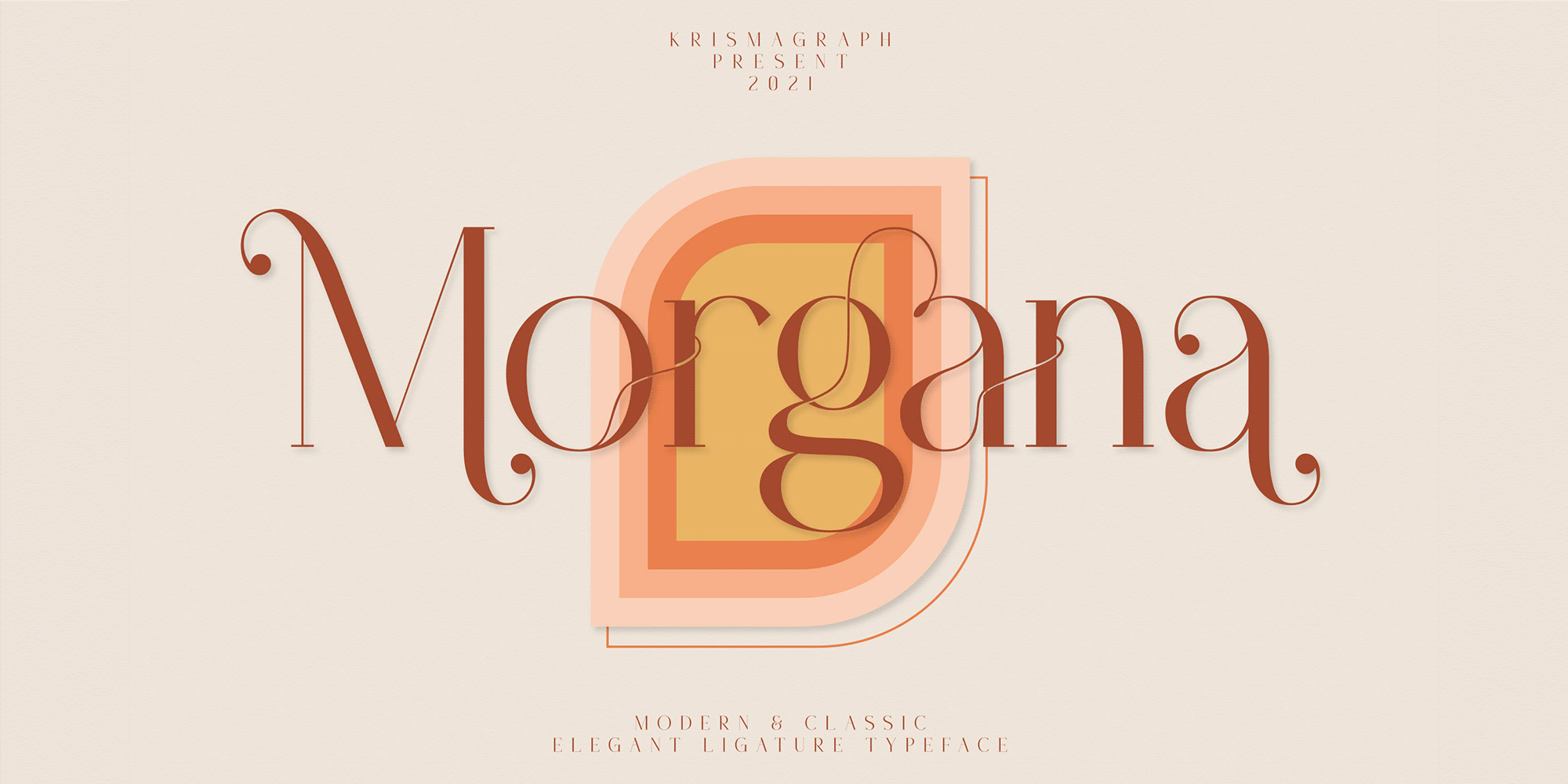
Morgana Font is perfect for mystical sorceress branding, enchanted fantasy novels, magical witchcraft academies, dark gothic romance covers, ancient spellbook designs, mystical jewelry packaging, supernatural TV series titles, and powerful witch-themed campaigns.
This font is exciting because it embodies ancient sorceress power with mystical elegance and enchanting sophistication. Morgana Font features magical letterforms with spell-binding curves that capture the essence of legendary witchcraft and mystical feminine power, making it ideal for projects that require authentic magical character and supernatural appeal.
The Morgana Font family includes regular, spell, bold, and mystical variants, along with enchanting alternates and magical ligatures that enhance its sorceress character. Each weight maintains the font's mystical aesthetic while providing different levels of magical expression for various fantasy and supernatural design applications.
Whether you're developing powerful magical brands, creating compelling supernatural materials, or designing enchanting witch campaigns, Morgana Font Free Download delivers exceptional mystique and sorceress appeal. Its distinctive magical style makes it an excellent choice for designers seeking to add genuine witchcraft energy and mystical sophistication to their projects. The font's versatility extends from fantasy book covers to magical product branding, ensuring consistent performance across all supernatural applications. With its magically crafted letterforms and sorceress proportions, this typeface provides professional results that cast spells on audiences and establish powerful mystical presence with its unmistakable witch character and legendary enchanting elegance.